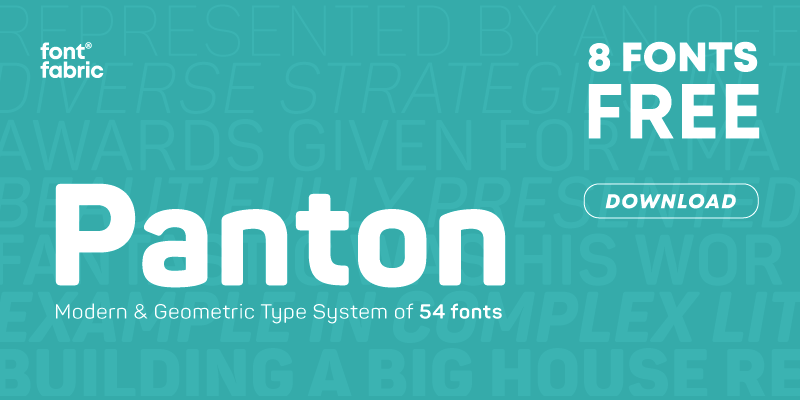
The huge variety of the Panton type system is making it suitable for headlines of all sizes, as well as for text blocks that come in both maximum and minimum variations. Its styles are applicable for any type of graphic design in web, print, motion graphics moreover perfect for T-shirts and other items like posters, logos, etc. |